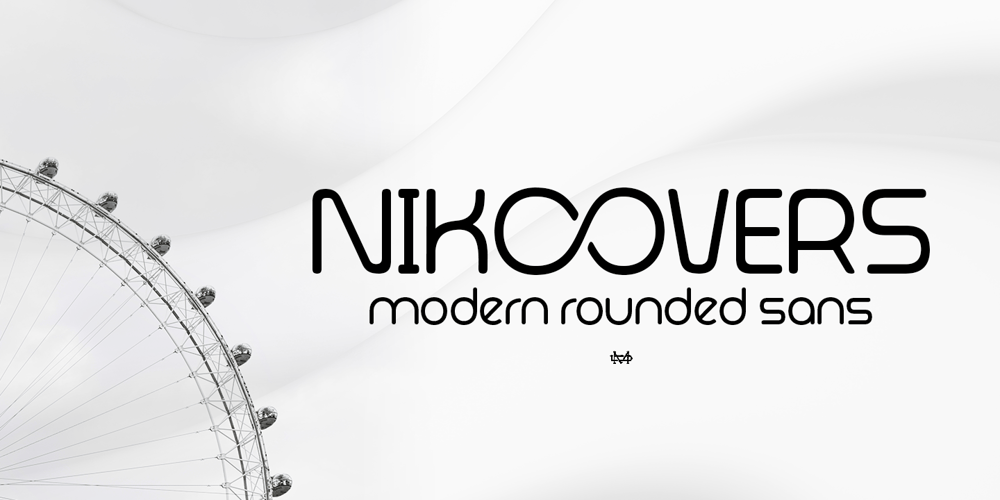
Nikoovers Font Family was designed by madededuk and published by madeDeduk. Nikoovers contains 1 styles and family package options. Nikoovers Font is a modern rounded sans that exudes simplicity and versatility. Its clean and geometric letterforms make it ideal for various design applications, from corporate branding to editorial layouts.Feature Uppercase & Lowercase Number & Symbol International Glyphs Multilingual support Alternative Ligature Feel free to drop us a message any time and follow my shop for upcoming updatesHope you enjoy it.